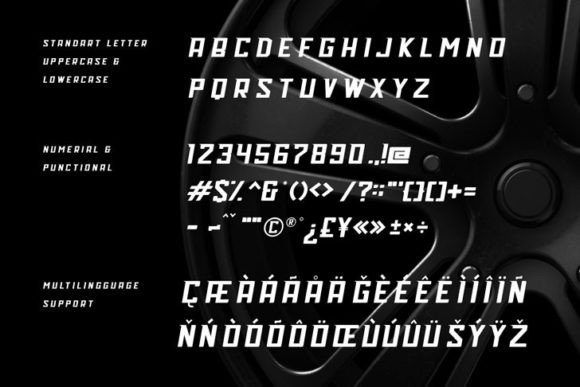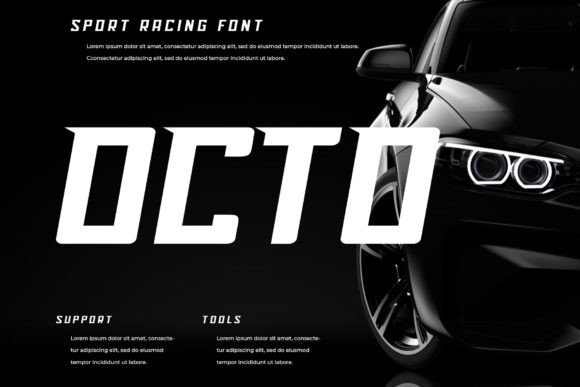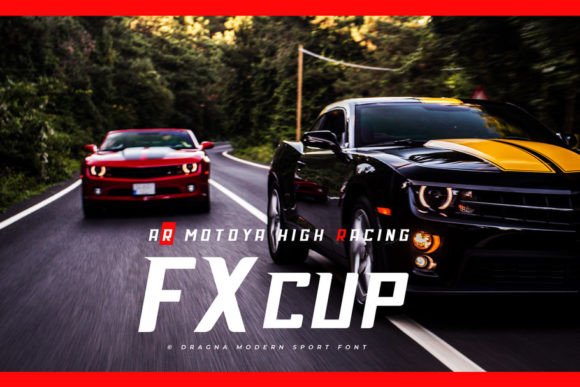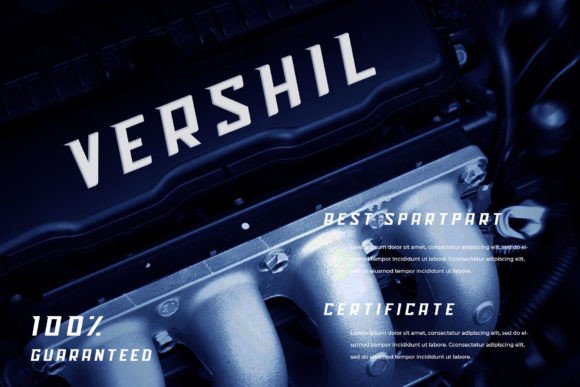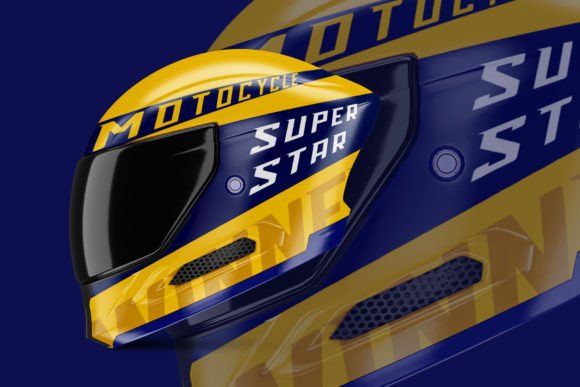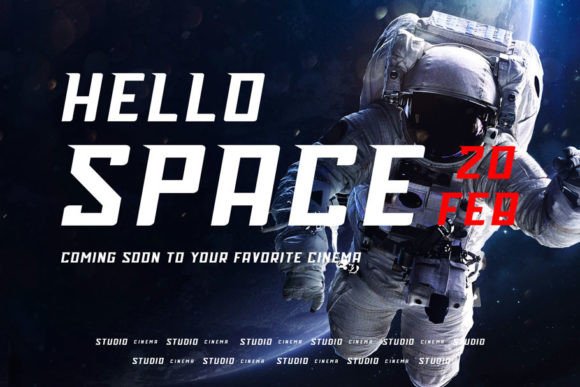
Dragna Font
DRAGNA FONT SPECIMEN
Dragna is a sport slab serif font with italic wide letters, modern letter cutout, and dynamic slant.
Dragna is ideal for sports headlines, automotive logos and monograms, and other dynamic text options.  Dragna is here to take your work to a high level